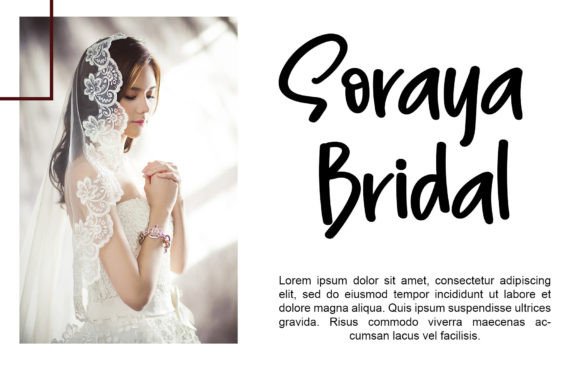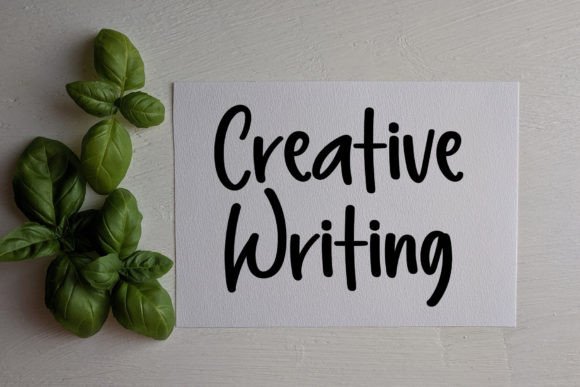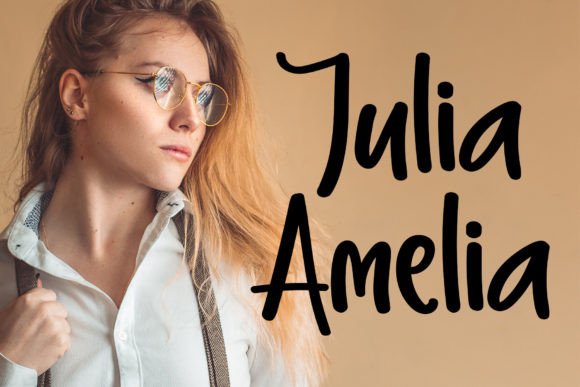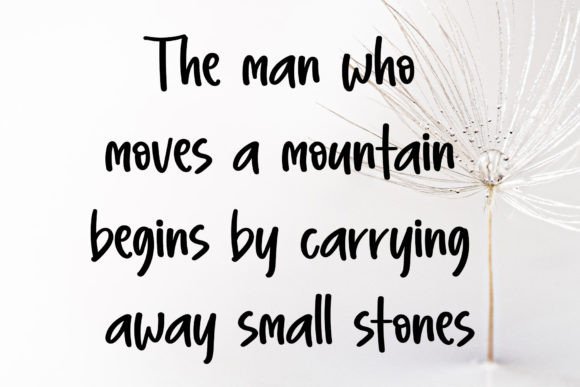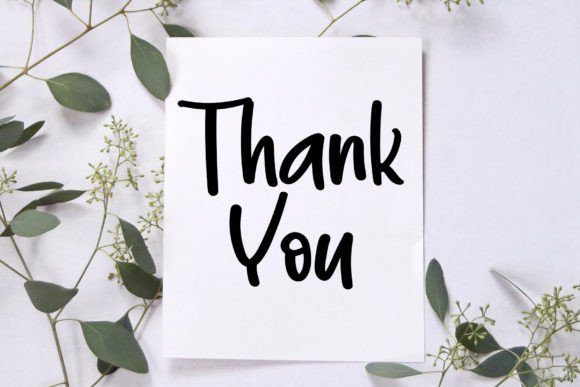
Introduction to Retrieval Font
Have you ever found yourself stuck in front of a blank canvas, struggling to bring your creative vision to life? The blank page can be daunting, but the right design resource can make all the difference. For designers looking to add a touch of personality to their high-quality projects, the Retrieval Font is an excellent choice.
This versatile font offers a unique balance of playful and professional elements, making it perfect for a wide range of creative projects. Its bold and expressive lines are not only easy on the eyes but also easy to read, making it an ideal design resource for designers of all levels. Whether you’re working on a design project that requires a free download or a transparent background, the Retrieval Font is a valuable addition to your toolkit.
Key Features of Retrieval Font
- High-quality design resource with a transparent background for seamless integration into creative projects.
- Designed to provide a unique and creative touch to any project, with a distinctive style that sets it apart from other fonts.
- Resolution-independent, ensuring that the font remains crisp and clear at various sizes and resolutions.
- Includes a range of weights and styles, providing designers with a versatile tool for a variety of creative projects.
- Perfect for designers and artists looking for a high-quality, free design resource to enhance their creative projects.
Honest Review: Retrieval Font
I recently had the chance to work with the Retrieval Font for a creative project, and I was pleasantly surprised by its high quality and versatility. This font is a great addition to any designer’s toolkit, and it’s completely free to download, making it a fantastic design resource.
Here are some things that work well with the Retrieval Font: ✨
- Transparent background: This makes it easy to layer the font over any image or design element.
- High-quality design: The font is well-crafted and looks great at a variety of font sizes.
- Wide range of applications: The Retrieval Font is suitable for both digital and print projects.
While the Retrieval Font is a great resource, there are a few limitations to keep in mind: ⚠️
- Limited font styles: The font only comes in a few different styles, which may limit its versatility in certain projects.
- No bold or italic options: Some designers may find it difficult to work with a font that doesn’t offer bold or italic options.
Overall, I was impressed with the Retrieval Font and would recommend it to designers looking for a high-quality, free design resource. It’s a great addition to any creative project, and I’m sure it will become a go-to font for many designers in the future.
Retrieval Font is ideal for various design projects, including business cards, menus, and product labels. Its clean and modern design makes it perfect for branding and marketing materials. You can also use it for personal projects, such as creating a wedding invitation or a photo album.